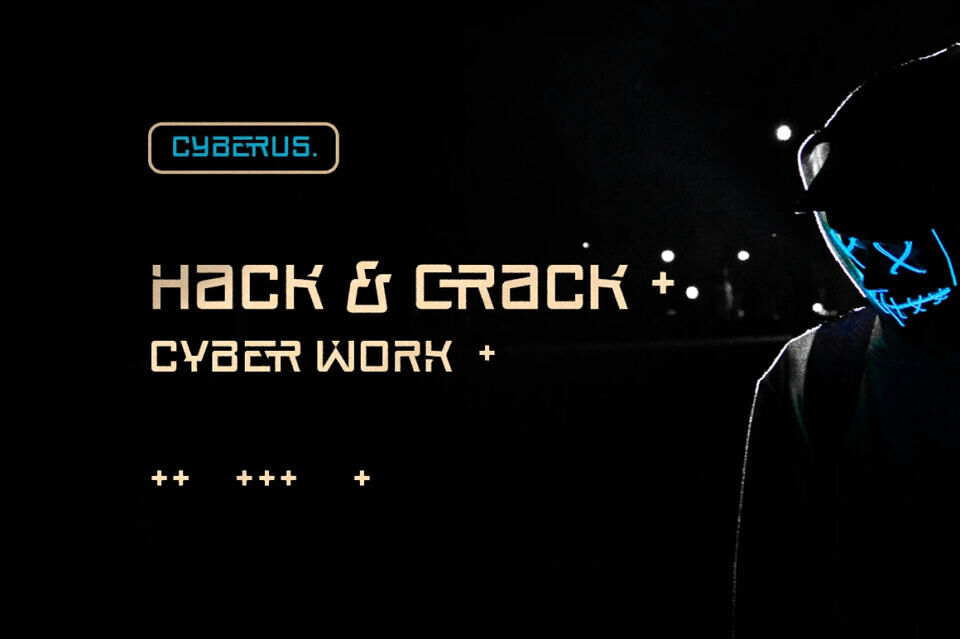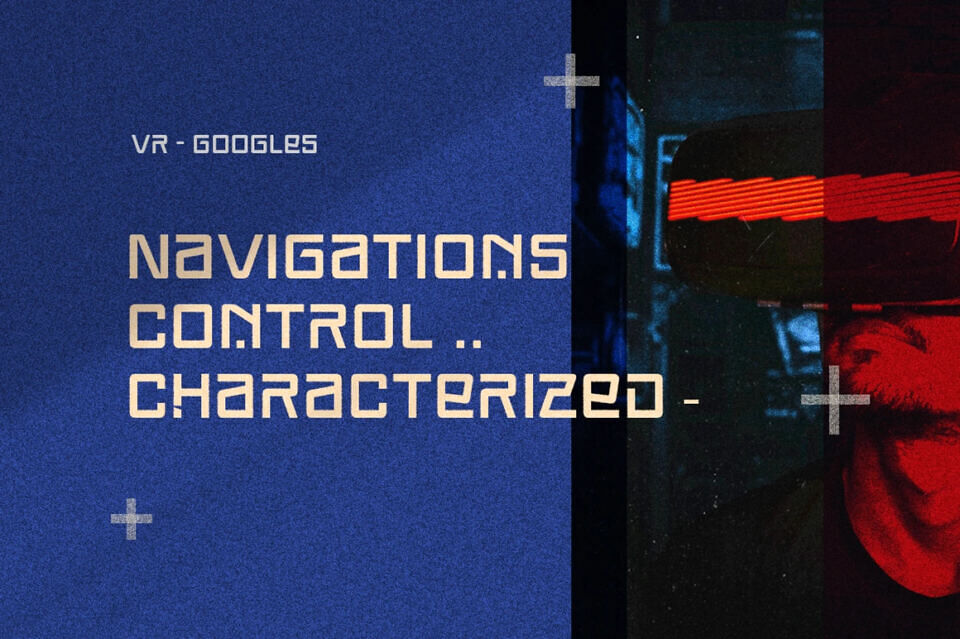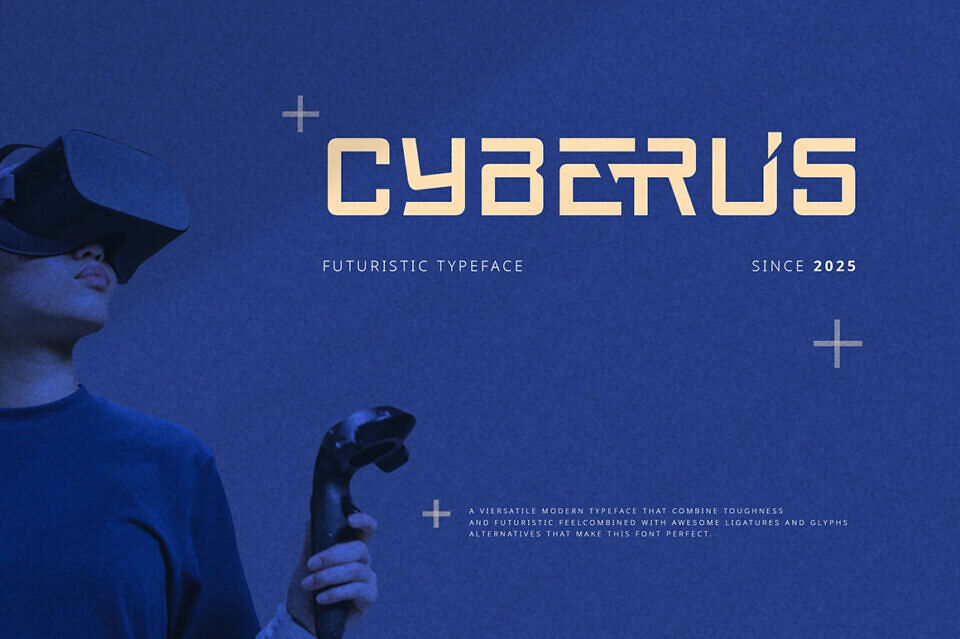
Cyberus Font
Cyberus is a sleek, futuristic sans-serif font that combines clean lines with a cutting-edge urban vibe. Its modern design exudes a sense of technology and innovation, making it the ideal choice for creating striking logo taglines, branding materials, or designs that require a forward-thinking aesthetic.
Perfectly suited for tech, gaming, or urban-inspired projects, Cyberus delivers both style and versatility to elevate your creative work.